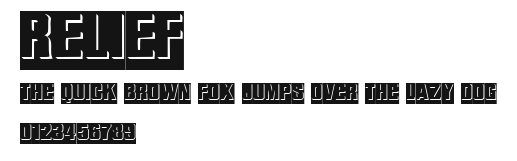
• Font Name: Relief
About Relief.ttf
Relief.ttf is a modern, elegant sans-serif font designed for ultimate readability and visual harmony. Perfect for branding, headlines, web design, and print materials.